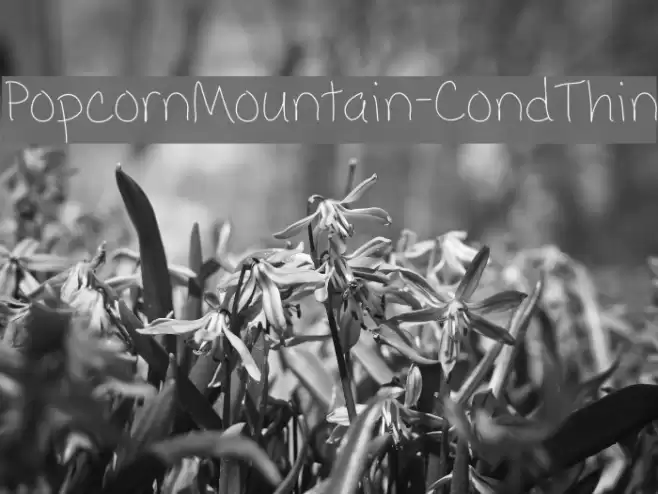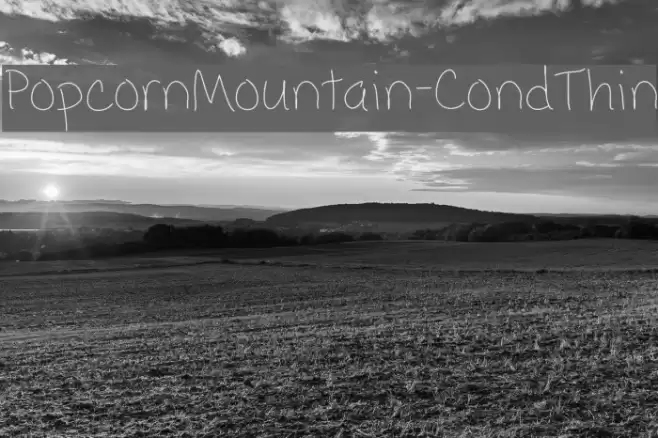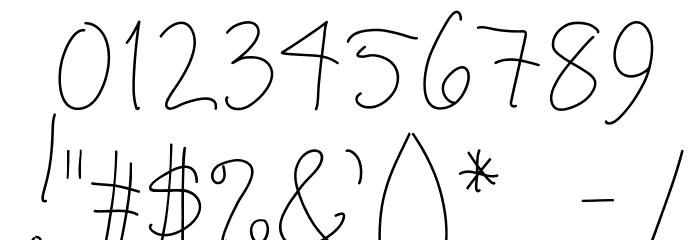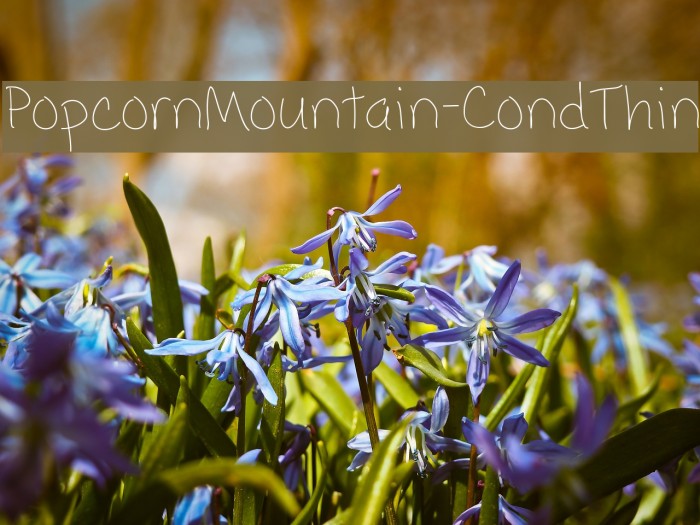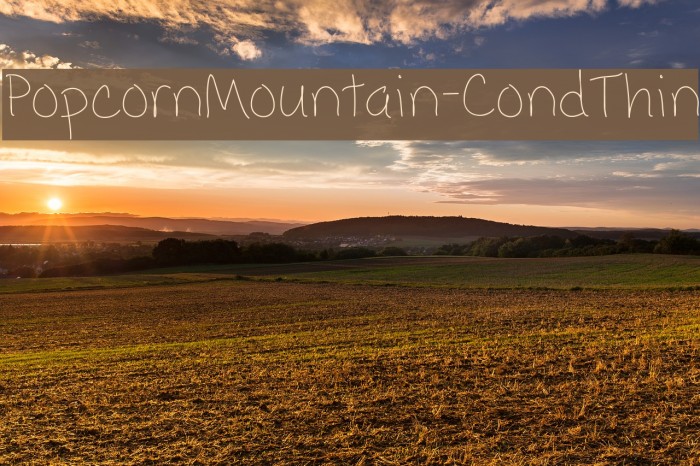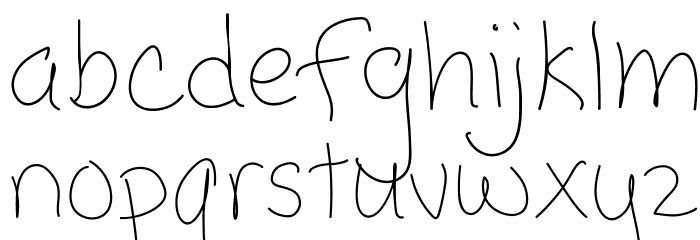
PopcornMountain-CondThin Font
PopcornMountain-CondThin Description
This font features a playful and casual handwritten style, characterized by its thin and slightly uneven strokes that give it a relaxed and informal appearance. The letters are tall and narrow, with a consistent height across both uppercase and lowercase characters, contributing to a cohesive look. The rounded edges and smooth curves add a friendly and approachable feel, making it suitable for projects that aim to convey warmth and personality. The numerals and special characters maintain the same whimsical style, ensuring a uniform aesthetic throughout. Its light weight and condensed width make it ideal for use in designs where space is limited but a distinctive style is desired.
A playful, thin handwritten font with a casual and friendly style from Uncategorized fonts.
- Proposed Projects: Ideal for greeting cards, children's books, casual branding, and social media graphics.
- Overall Style: Casual